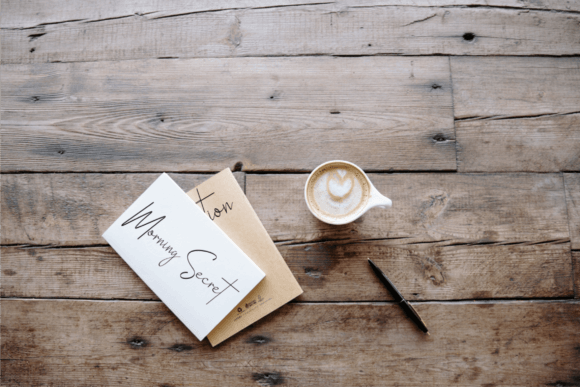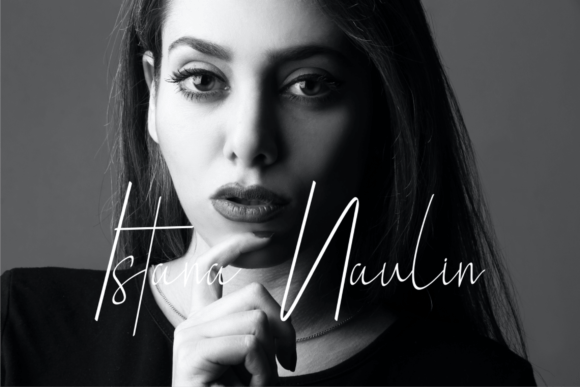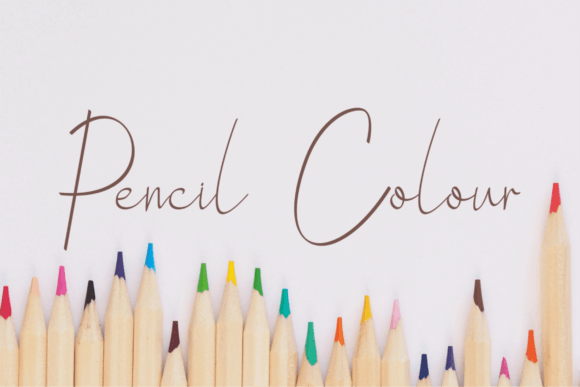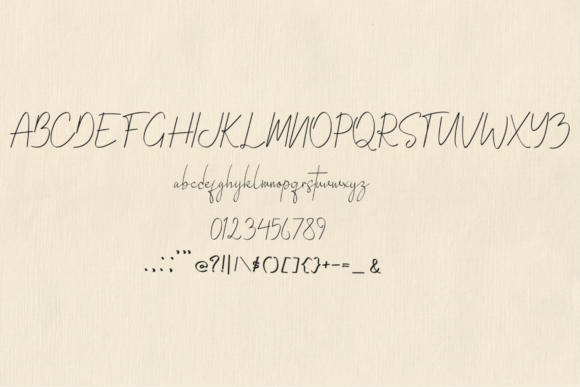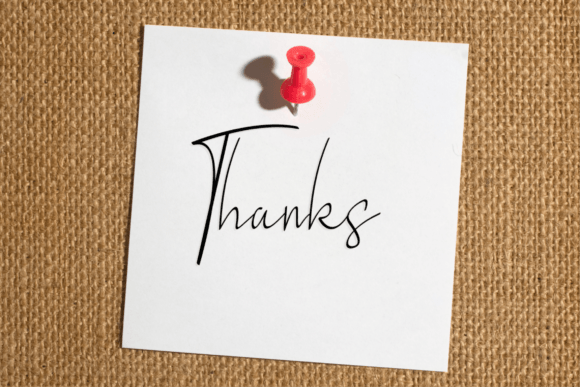
Introduction to Moontose Font
Have you ever been in the midst of a creative project, staring at a blank canvas, waiting for that perfect design to emerge? For designers, it’s a familiar feeling – a mix of excitement and frustration. But what if you had the right tool to bring your ideas to life? Enter the Moontose Font, a thin and authentic script font that’s about to revolutionize your design process.
With its versatility and high-quality design, the Moontose Font is an invaluable resource for designers. Whether you’re working on a logo, t-shirt printing, esports branding, or any other creative project, this font is sure to make your designs stand out. Its transparent background and sleek aesthetic make it perfect for any design project that requires a touch of elegance and sophistication.
Key Features of Moontose Font
- Unique, Hand-Drawn Design: The Moontose Font offers a distinctive, hand-drawn style that adds a touch of elegance to any creative project.
- Transparent Background: This design resource features a transparent background, allowing for seamless integration with any design or creative project.
- High Resolution: The font is available in high resolution, ensuring crisp and clear text rendering even at large font sizes.
- Perfect for Creative Projects: The Moontose Font is ideal for designers working on creative projects, such as branding, advertising, and editorial design.
- Size: The font family includes multiple weights and styles, offering a range of font sizes to suit different design needs.
Honest Review: Moontose Font
I recently stumbled upon the Moontose Font, a free download that’s been making waves in the design community. As a designer, I was excited to dive in and see if it lived up to the hype.
What works well: ✨ The Moontose Font has a unique, hand-drawn feel that’s perfect for creative projects. The font is highly customizable, with a range of styles and weights to choose from. It’s also available in a transparent background, making it easy to use in a variety of design contexts.
Limitations: ⚠️ While the Moontose Font is a great resource, it’s not without its limitations. The font is only available in a limited range of languages, which may be a drawback for designers working on global projects. Additionally, the font may not be suitable for all types of design work, such as technical or formal documents.
- Perfect for creative projects, such as branding, packaging, or advertising
- Highly customizable with a range of styles and weights
- Available in a transparent background for easy use
Overall, I’m impressed with the Moontose Font. It’s a great resource for designers looking to add some personality to their work. While it may have some limitations, the benefits far outweigh the drawbacks. I’d definitely recommend it to anyone looking for a unique and high-quality design font.
The Moontose Font is a versatile design resource that can be used in various creative projects. It’s a high-quality font with a transparent background, making it perfect for any design need.
To get the most out of the Moontose Font, experiment with different font sizes, colors, and styles. You can also use it in combination with other design elements to create a unique and eye-catching design.
The Moontose Font is perfect for creating logos, brochures, business cards, and other marketing materials. It’s also great for designing social media graphics, presentations, and other visual content.